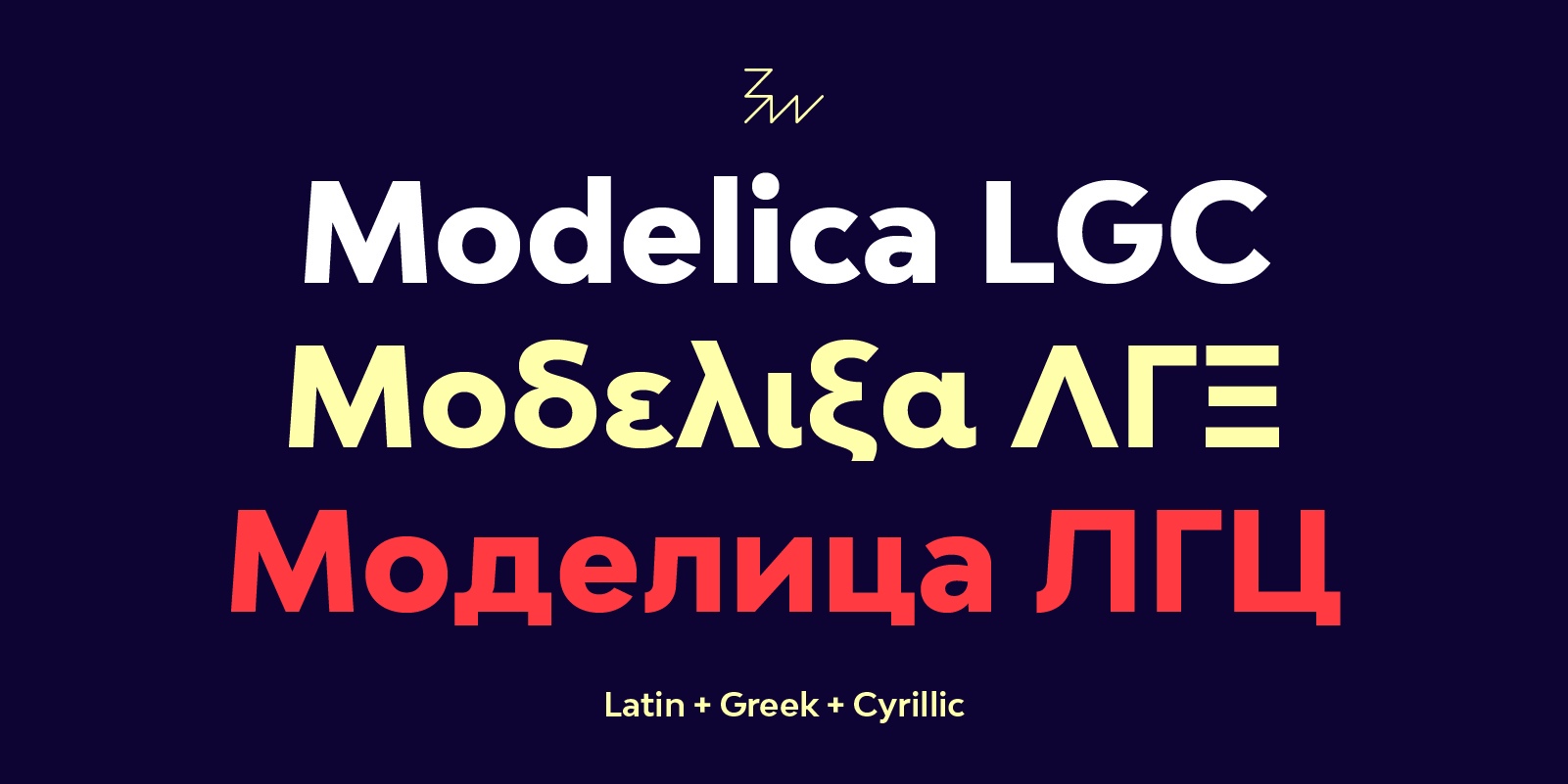
Bw Modelica LGC Font
Bw Modelica LGC Font is perfect for professional corporate branding, sophisticated marketing materials, contemporary web design, elegant business communications, premium app interfaces, refined packaging solutions, distinguished presentations, modern editorial design, sleek logo applications, and cutting-edge digital experiences.
What makes Bw Modelica LGC Font so exciting is its modeling perfection that combines systematic design principles with exceptional versatility, creating typography that serves as the ideal foundation for sophisticated brand systems and professional communications. This exemplary typeface embodies design intelligence and functional excellence, delivering visual communication that adapts seamlessly to diverse applications while maintaining consistent quality.
The Bw Modelica LGC Font family includes comprehensive weight variations, extensive character coverage, and systematic design features that provide designers with complete tools for creating cohesive and memorable typography that represents the perfect balance between structural integrity and expressive flexibility.
The systematically designed letterforms of Bw Modelica LGC Font showcase modeling elegance with professional character that creates instant recognition of design intelligence and systematic quality. Each character displays meticulous attention to maintaining the structural precision that defines modeling excellence while ensuring superior adaptability and professional versatility. The font's systematic construction and modeling spacing contribute to its sophisticated appearance and professional appeal.
Professional brands and design-conscious organizations consistently choose Bw Modelica LGC Font for projects requiring systematic sophistication and modeling precision. The comprehensive character set includes uppercase and lowercase letters, numerals, extensive punctuation, international accents, and systematic elements that provide complete support for professional branding applications and comprehensive design systems.
The modeling versatility of Bw Modelica LGC Font ensures exceptional performance across both traditional print and modern digital platforms. Whether developing systematic brand identities, creating comprehensive marketing campaigns, or designing professional corporate materials, this remarkable typeface delivers consistent modeling that resonates with audiences seeking systematic excellence and professional reliability.